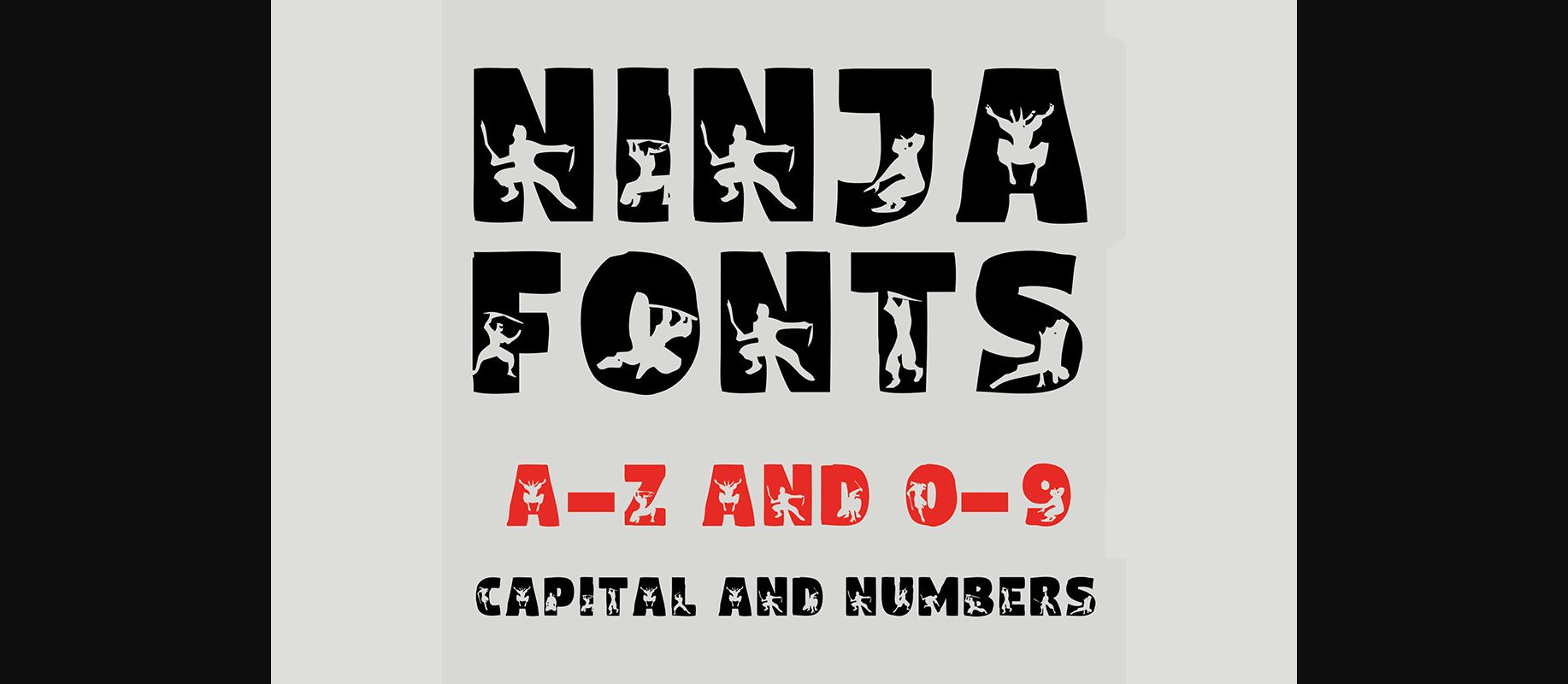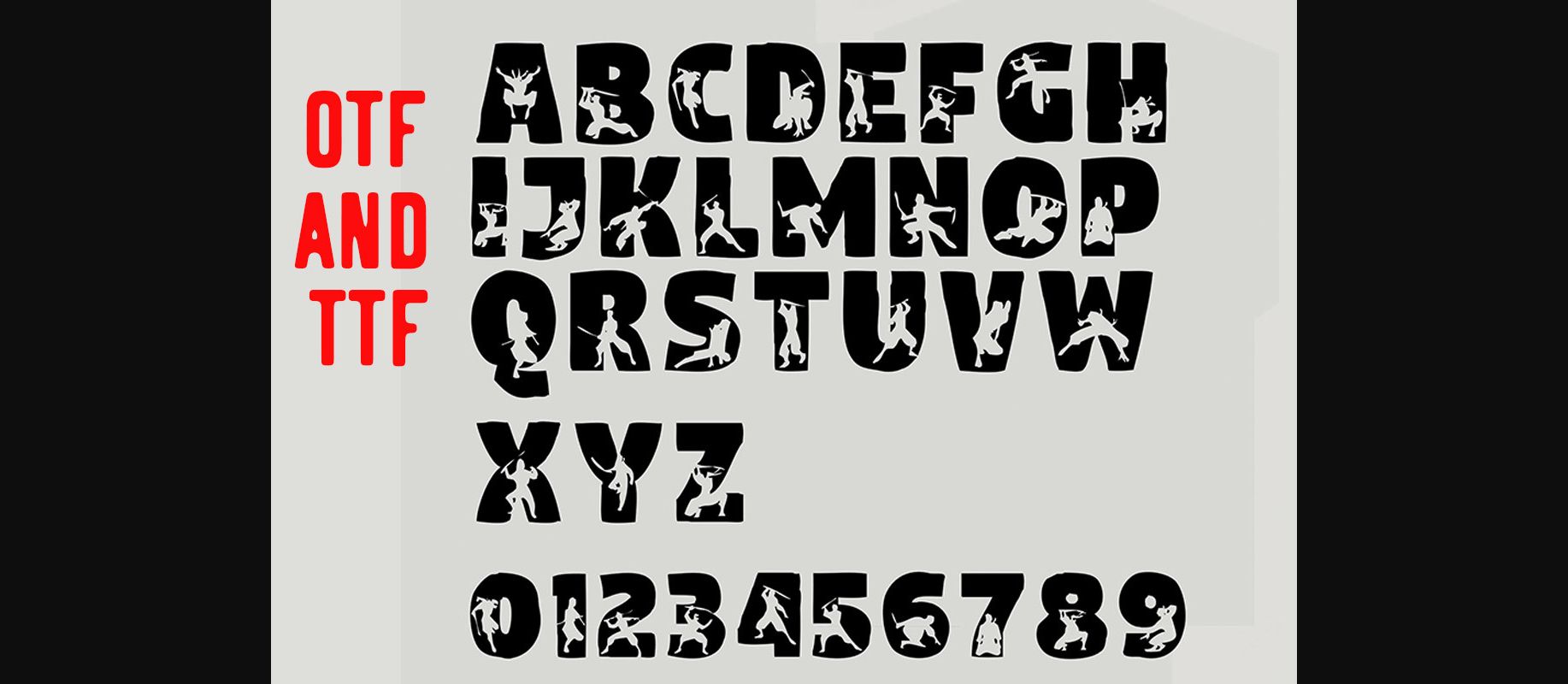
About Ninja Font
Unleash your inner ninja with Ninja Font, an intriguing and mysterious alphabet and numbers font inspired by the art of stealth and cunning. This unique font is perfect for projects that require a touch of ninja-inspired flair, including gaming logos, martial arts event posters, action-packed comic books, and more. It font will bring a sense of secrecy and excitement to your designs, captivating your audience with its enigmatic charm.